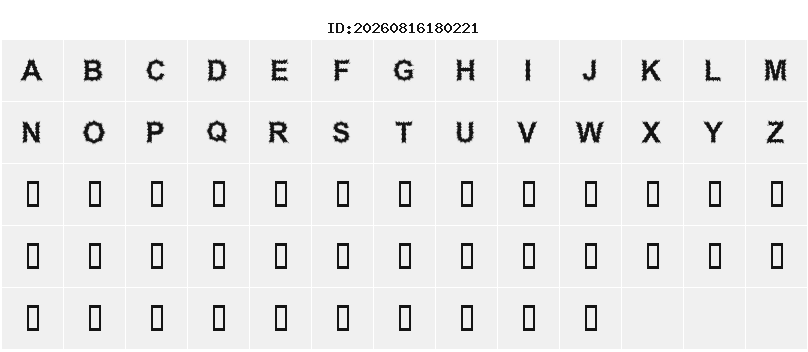
Spikey Mikey Preview
• Font Name: Spikey Mikey
About Spikey Mikey.ttf
Spikey Mikey.ttf is a modern, elegant sans-serif font designed for ultimate readability and visual harmony. Perfect for branding, headlines, web design, and print materials.